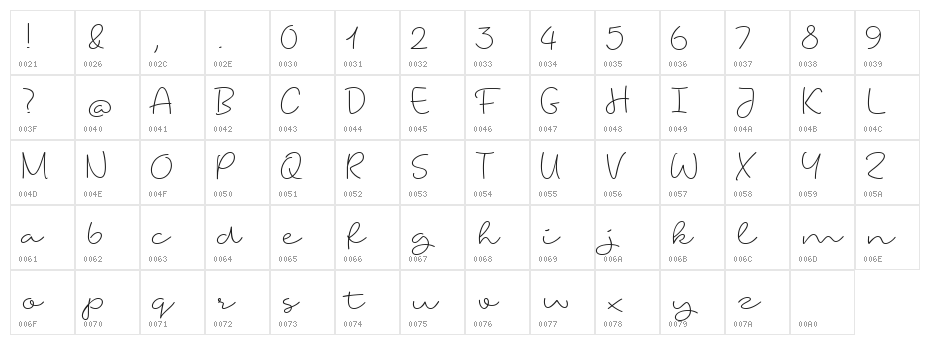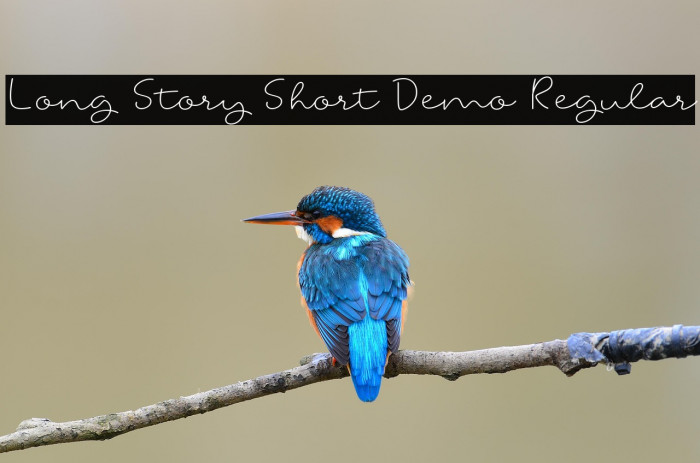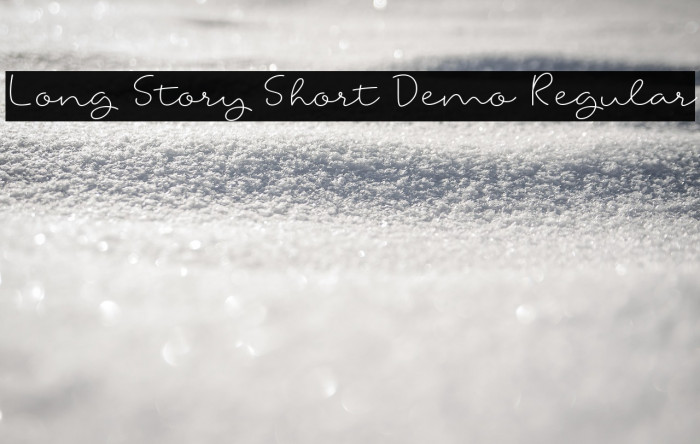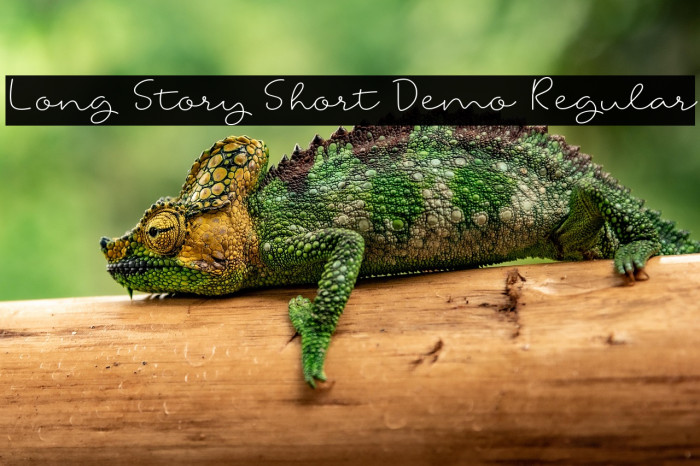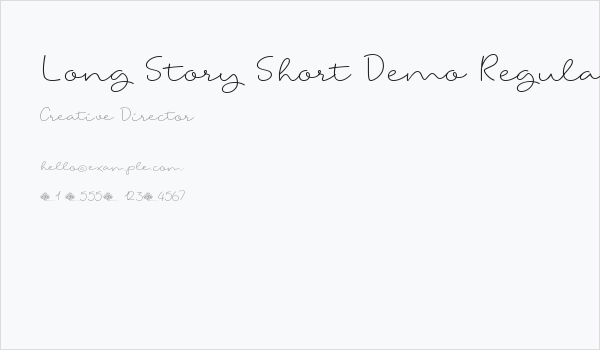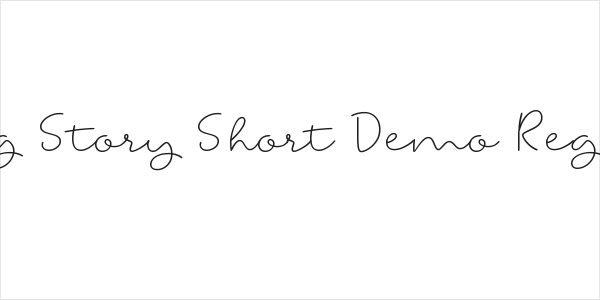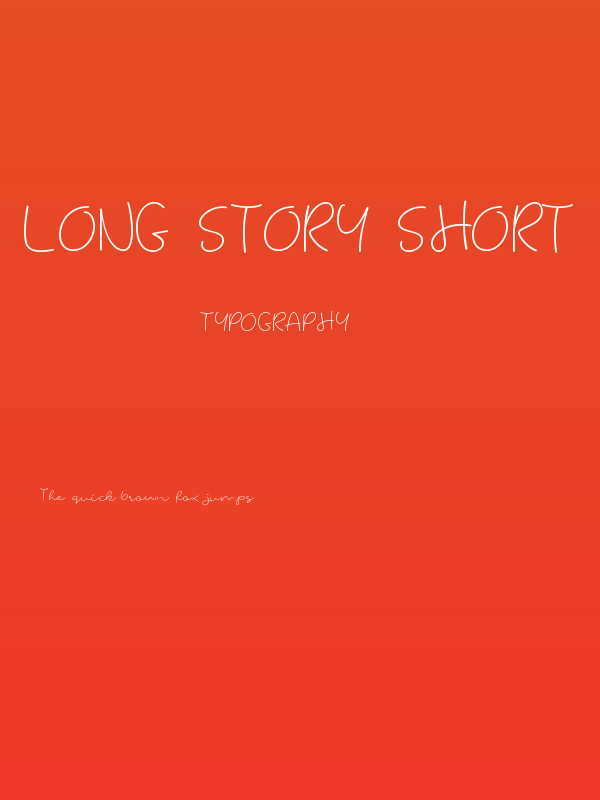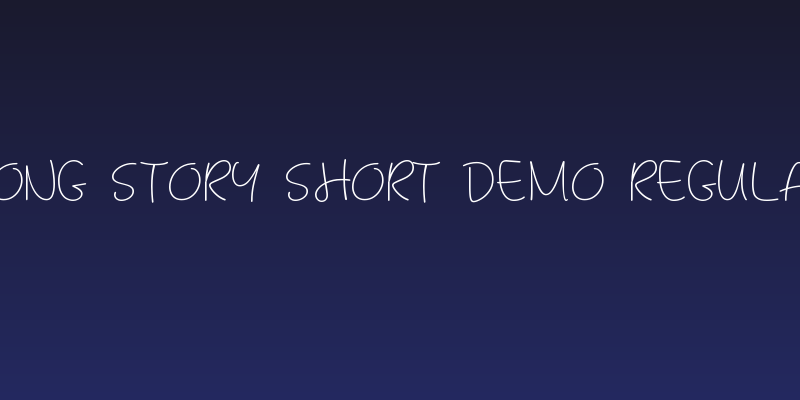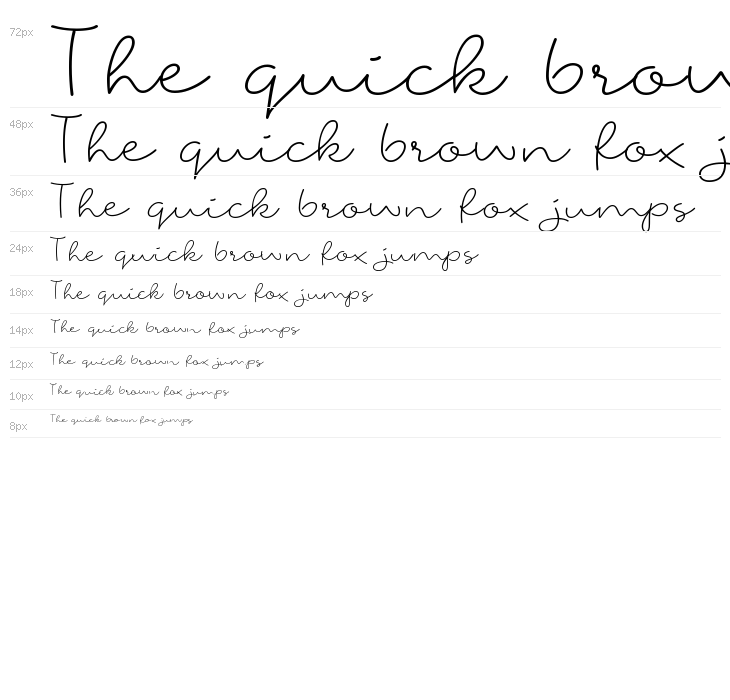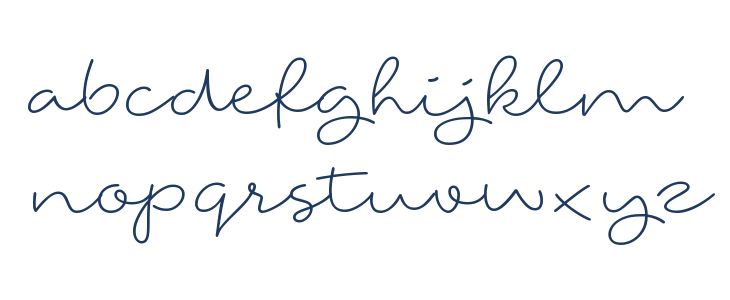
Long Story Short Demo Regular Font
Long Story Short Demo Regular Description
This font features a playful and casual handwritten style, characterized by its smooth and flowing curves. The uppercase letters are slightly larger and more pronounced, while the lowercase letters maintain a consistent and harmonious flow. The numbers are clear and easy to read, with a slight tilt that adds to the font's informal charm. Special characters are integrated seamlessly, maintaining the overall aesthetic. The font's design is approachable and friendly, making it suitable for projects that require a personal touch.
| Proposed Projects | Ideal for greeting cards, personal invitations, casual branding, and social media graphics. |